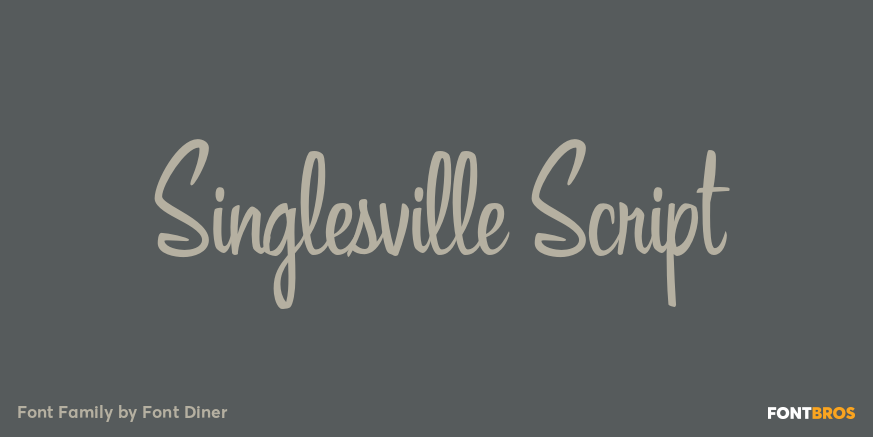
HomeFont BrosHandwrittenSinglesville Script HandwrittenScripts: CasualScripts: FormalRetro (1936-1965) Singlesville Script FacebookXPinterestWhatsApp 1 of 1 About Singlesville Script Indulge in this classic retro brush-style script; perfect anytime you need a condensed upright script in those tight spaces!  DOWNLOAD ON FONT BROSThis font is sold and delivered by Font Bros. Font Canyon may earn a commission if you buy through this link. People also explored Gnome Font Watermelon Font Jakarta Font Kimberly Dellia Font Black Cat Font Atom – Straightâ„¢ Font Chris Master Font Asparagus Font Mattolla Font 368 0 TagsSinglesville Script Font Previous articleMaestriNext articleNexa LEAVE A REPLY Cancel reply Comment: Please enter your comment! Name:* Please enter your name here Email:* You have entered an incorrect email address! Please enter your email address here Website: Save my name, email, and website in this browser for the next time I comment. Personal Use Free Sybil Green Personal Use Free Read more about this font Sunbright Font Personal Use Free Read more about this font Arc Personal Use Free Read more about this font Pelmeshka Personal Use Free Read more about this font BLOG Free vs Paid Fonts: Why Investing in Premium Fonts Is Worth It Free vs Paid Fonts: Why Premium Fonts Are Worth It in 2025 The debate of free vs paid fonts continues in the design world. While... Transform Your Website: Elevate Your Typography with 7 Best Web Font Generators How to Cut Any Font on Cricut: Convert a Font to SVG (Free) Using Fonts in Digital Marketing: Tips to Strengthen Your Brand Identity